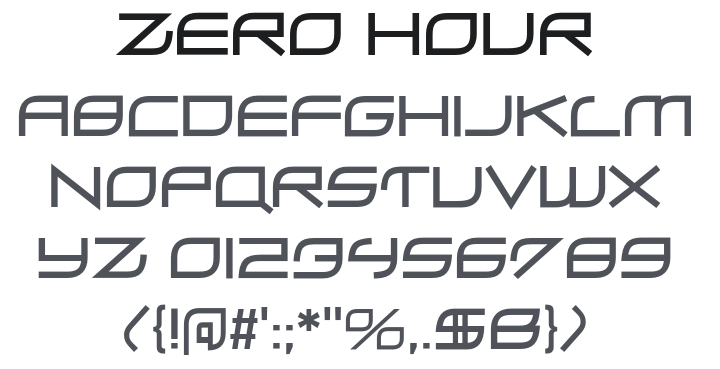
Zero Hour Font
About Zero Hour
Zero Hour is a wide, outstretched digital display typeface with harsh, robotic all-caps letterforms built on a broad horizontal grid — each character feels engineered for a cold, scientific readout, radiating Y2K techno optimism with clinical precision. Its expansive proportions give every headline a commanding, mission-critical authority. Perfect for sci-fi interfaces, space-themed game titles, cyberpunk branding, tech posters, and any design needing robotic, high-stakes urgency.